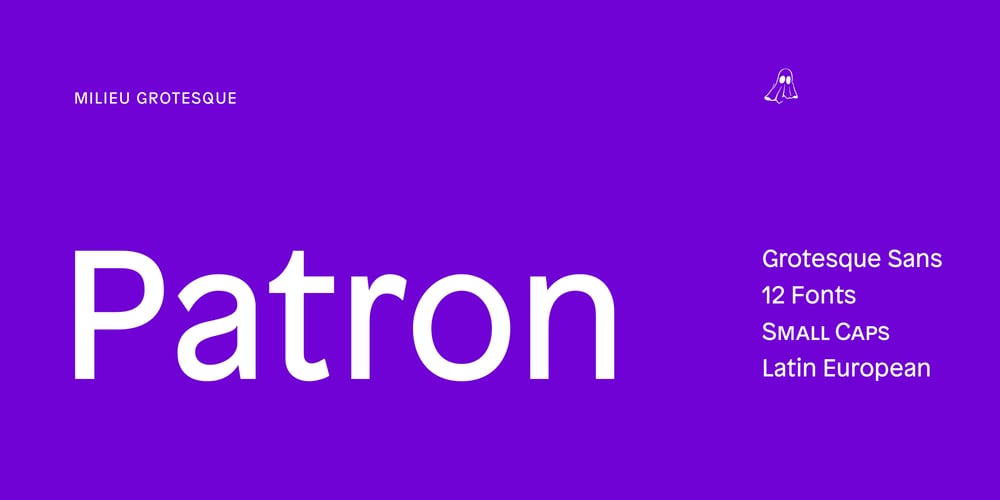
Patron Font Family was designed by Timo Gaessner and published by Milieu Grotesque. Patron contains 12 styles and family package options. Patron is a sans serif influenced by two dissimilar type designers, Günther Gerhard Lange and Roger Excoffon.Patron is a sans serif influenced by two dissimilar type designers, Günther Gerhard Lange and Roger Excoffon. Patron unites their contradictory approaches to create an expressive, yet versatile grotesk. As a result, Patron is characterised by a generous x-height, flared stroke endings and an unconventional shift in balance, inspired by Excoffon and a rigorously precise, modern interpretation for which Lange was most famous.